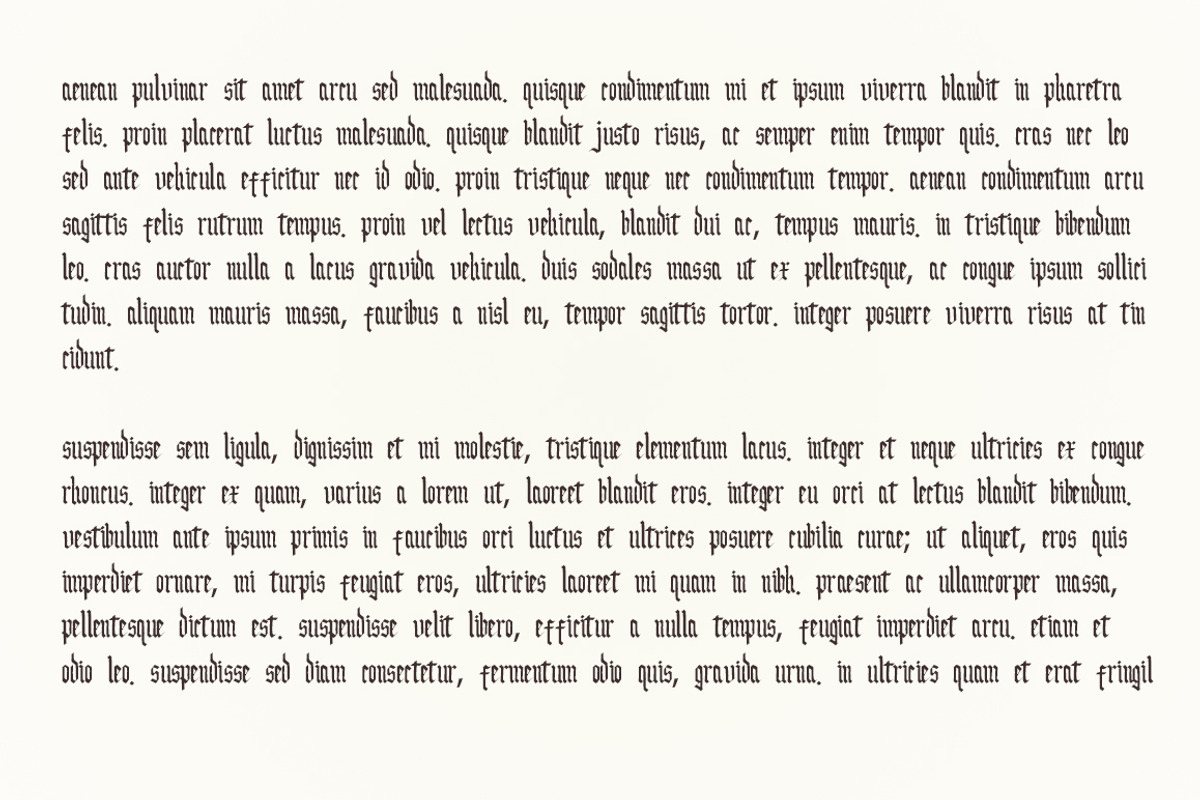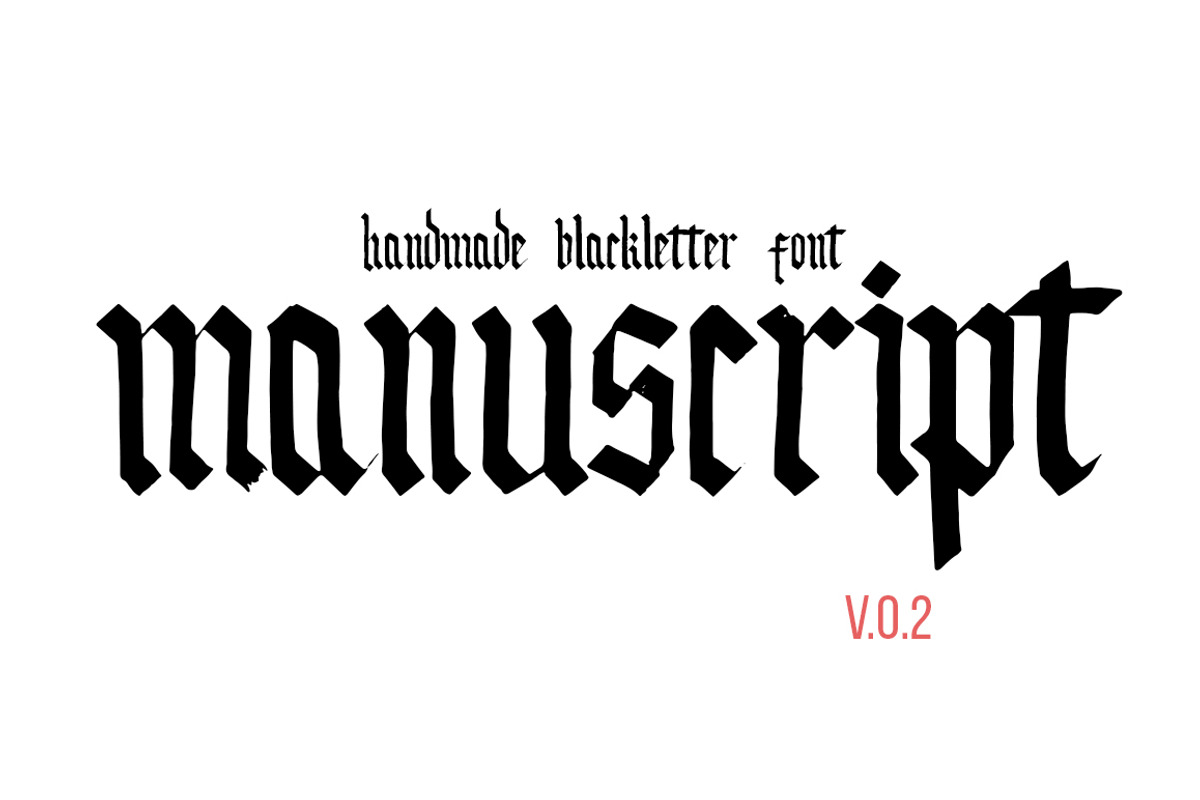
Handmade blackletter font
Handmade blackletter font by Sergey Mironov's store is a font selected for branding, posters, packaging, typography.
Why Handmade blackletter font is worth a look
Handmade blackletter font by Sergey Mironov's store fits naturally into Branding, posters, packaging, typography.